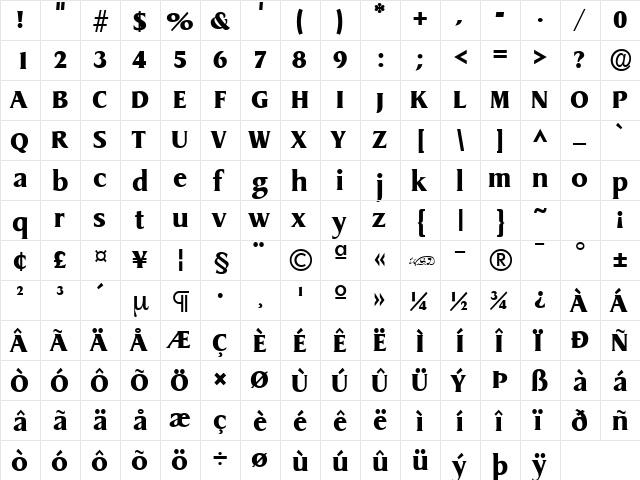
Griffon Extrabold Regular
Design Context for Griffon Extrabold Typeface
Griffon Extrabold offers clean, dependable letterforms without strong stylistic allegiance, making it a practical choice for designers who need flexibility. The heavy weight commands attention and anchors typographic hierarchies.
Pro Tip: Pair Griffon Extrabold with a font of contrasting weight or personality to build a more expressive typographic hierarchy.